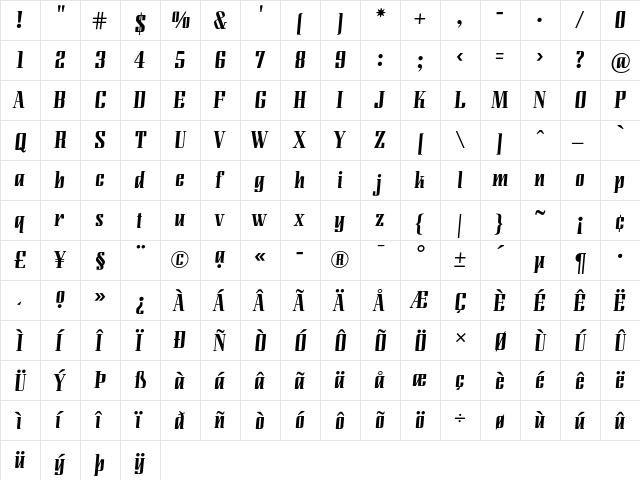
LundaModern Regular
Design Context for LundaModern Typeface
LundaModern takes a measured approach to typography — its balanced proportions and neutral character make it a reliable workhorse for both digital and print work.
Pro Tip: Use LundaModern in both headline and body roles to test its range before committing to a single application.